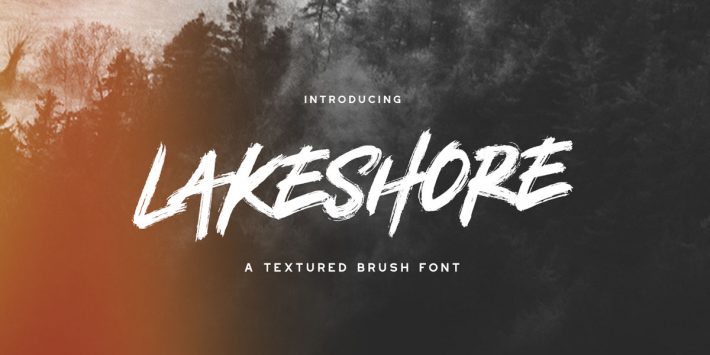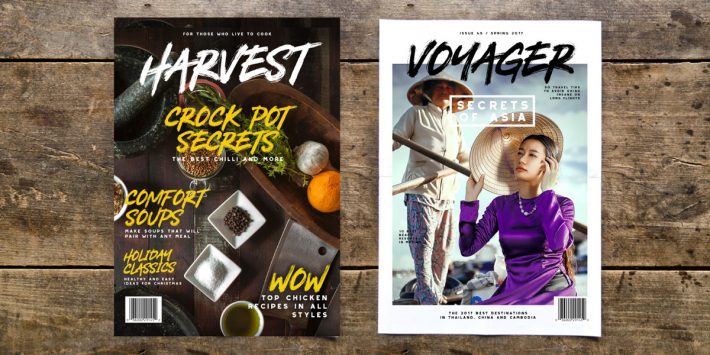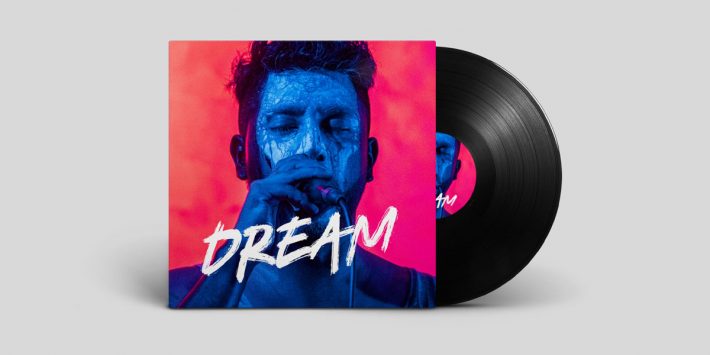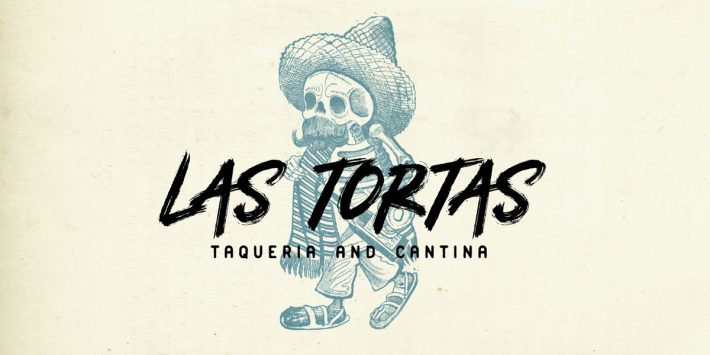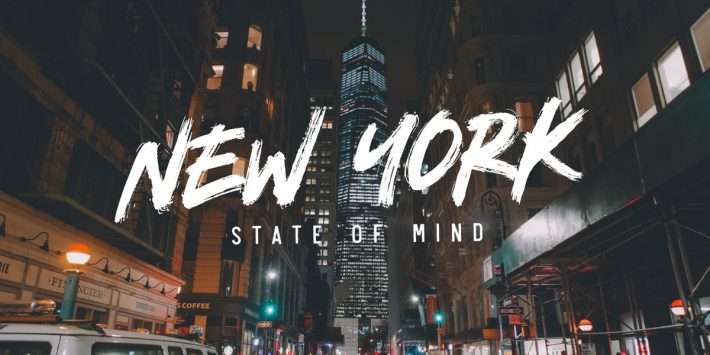
Lakeshore Font – Free Brush Font
Lakeshore Font
Lakeshore Font is modern, hand painted typeface created by Greg Nicholls. Each character is painted almost more than fifty times until get the flawless result. Really awesome, beautiful and inspiring typeface.